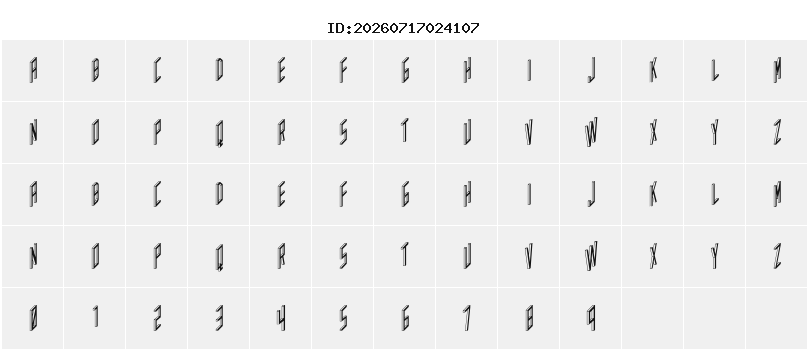
• Font Name: AC Framed Inverted
• Designer: Adrian Candela
• Manufacturer: Adrian Candela
• Description: AC Framed is a font by Adrian Candela, designed by Adrian Candela in 2013.
About AC Framed Inverted.otf
AC Framed Inverted.otf is a modern, elegant sans-serif font designed for ultimate readability and visual harmony. Perfect for branding, headlines, web design, and print materials.